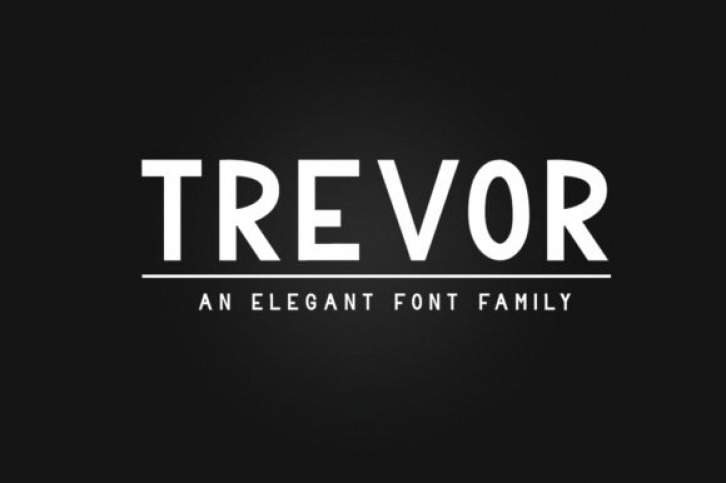
The Trevor an elegant and modern sans serif family. It will add a modern, sophisticated feel to every design.
All 12 styles can be combined together perfectly but are also amazing as great stand-alones!